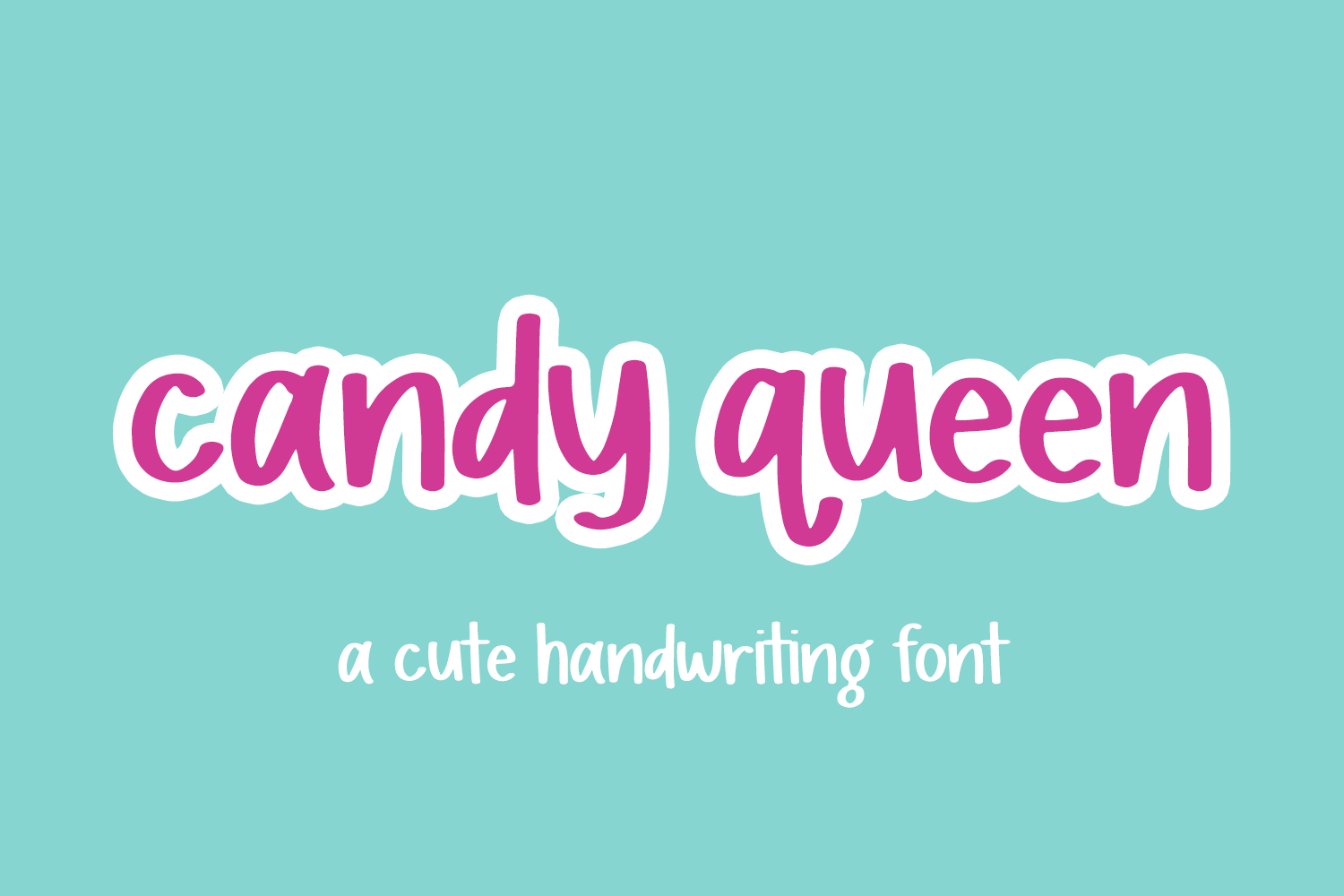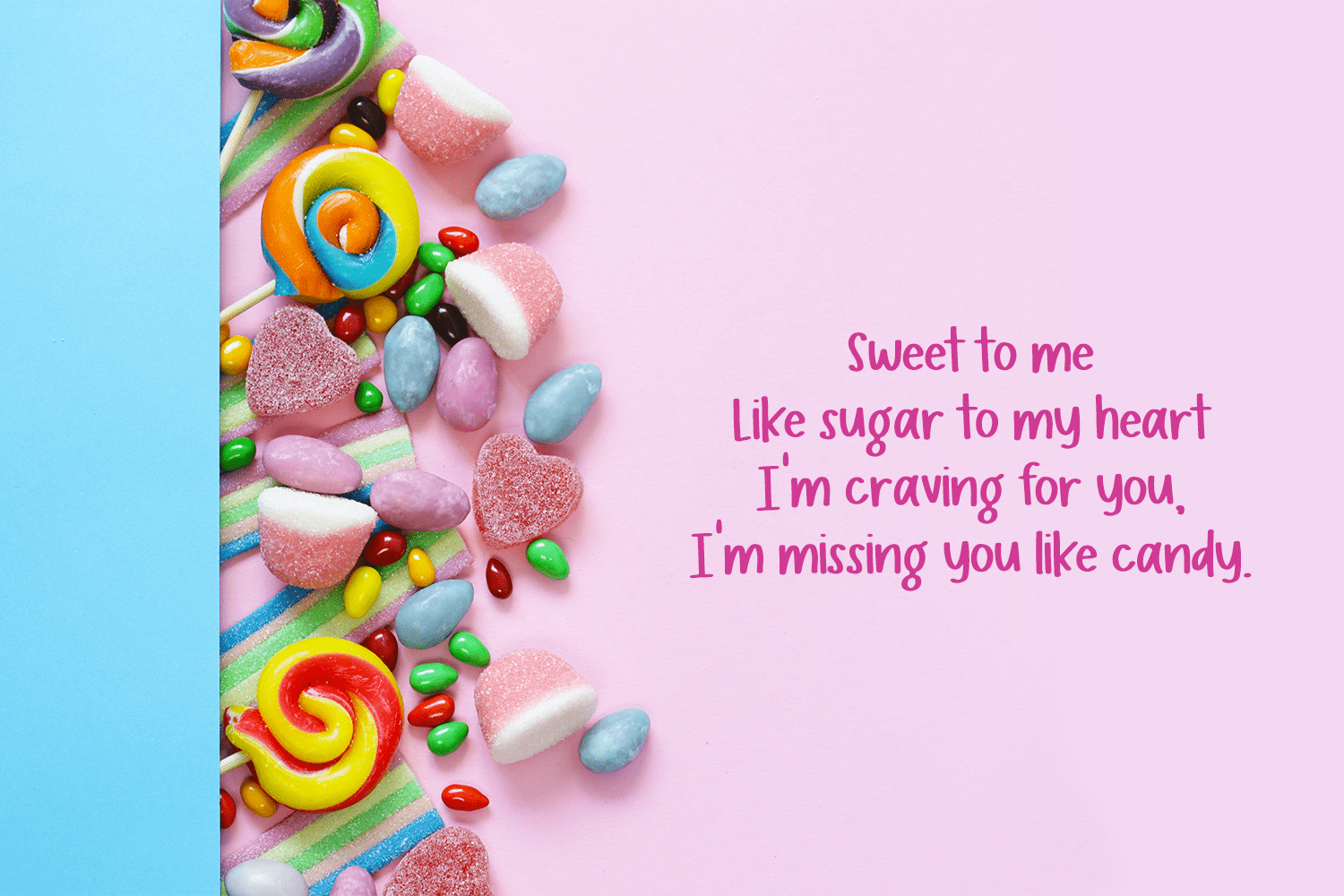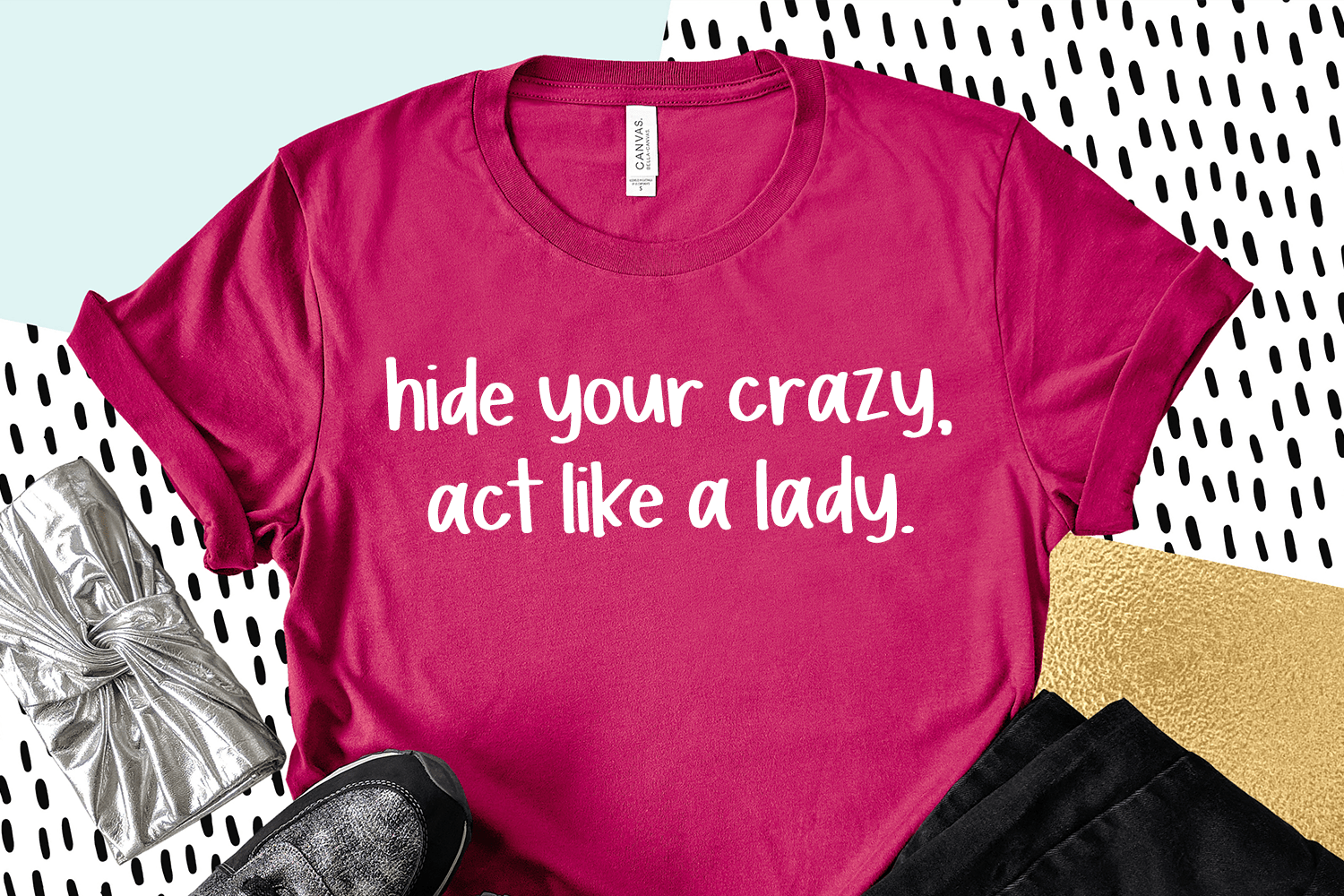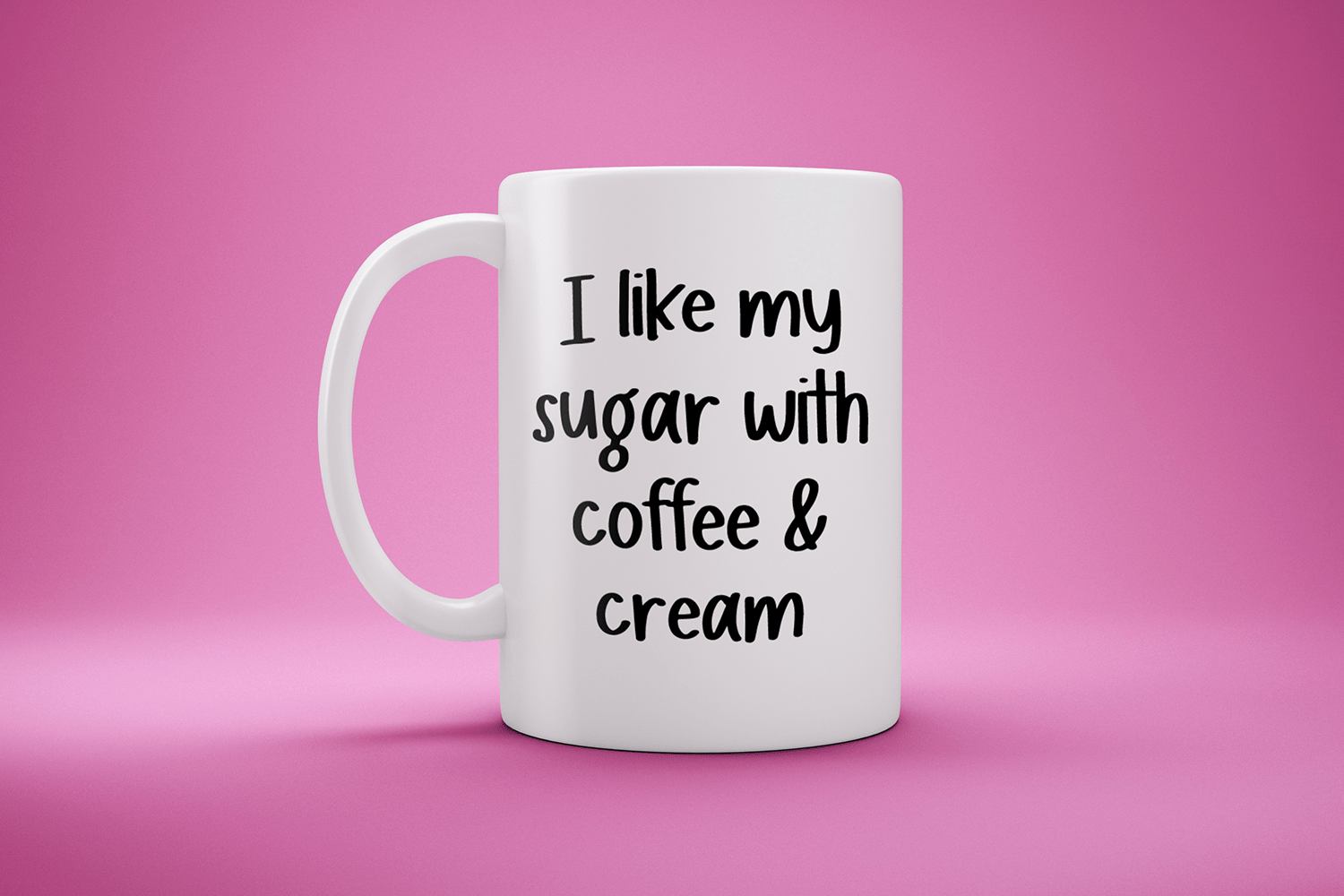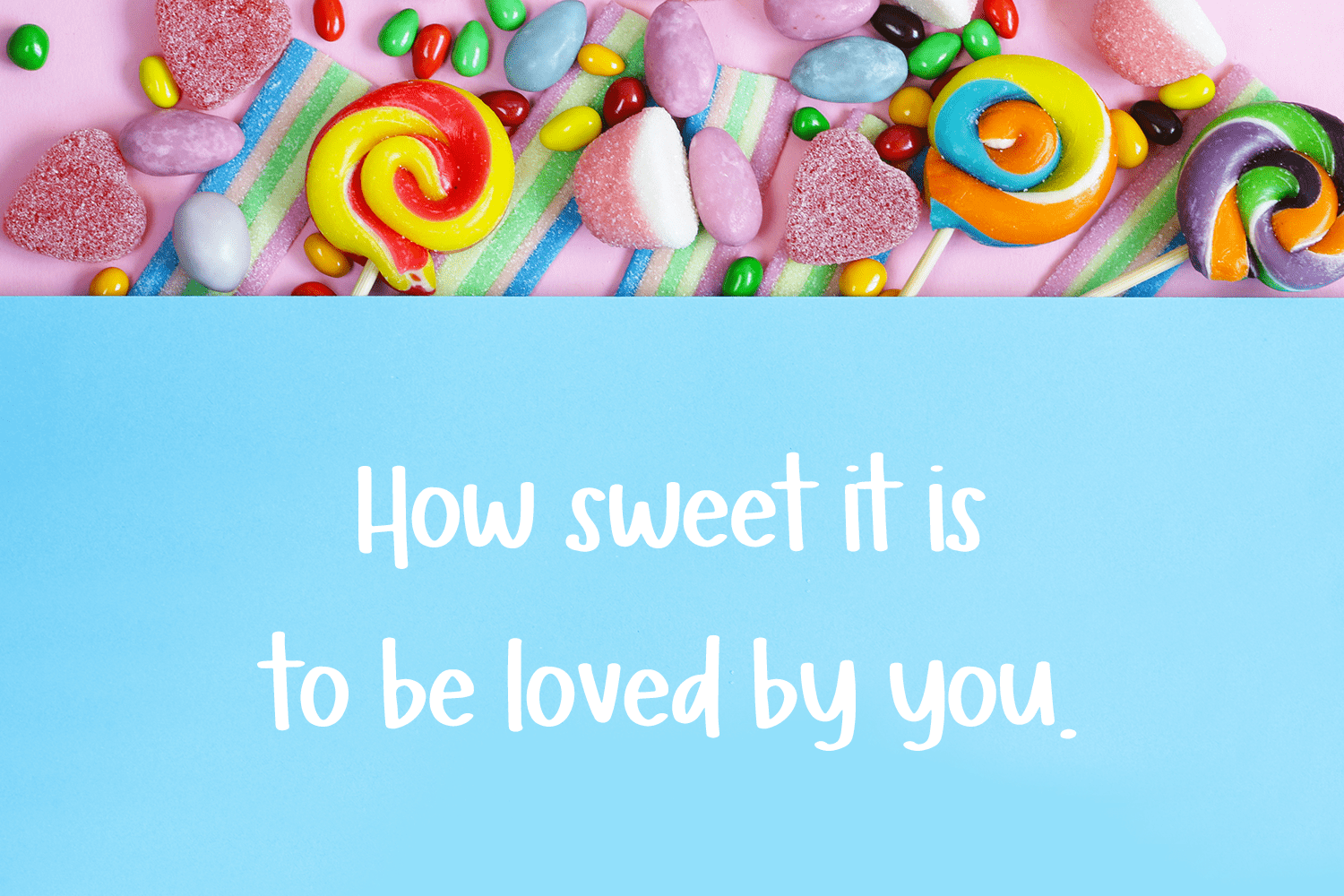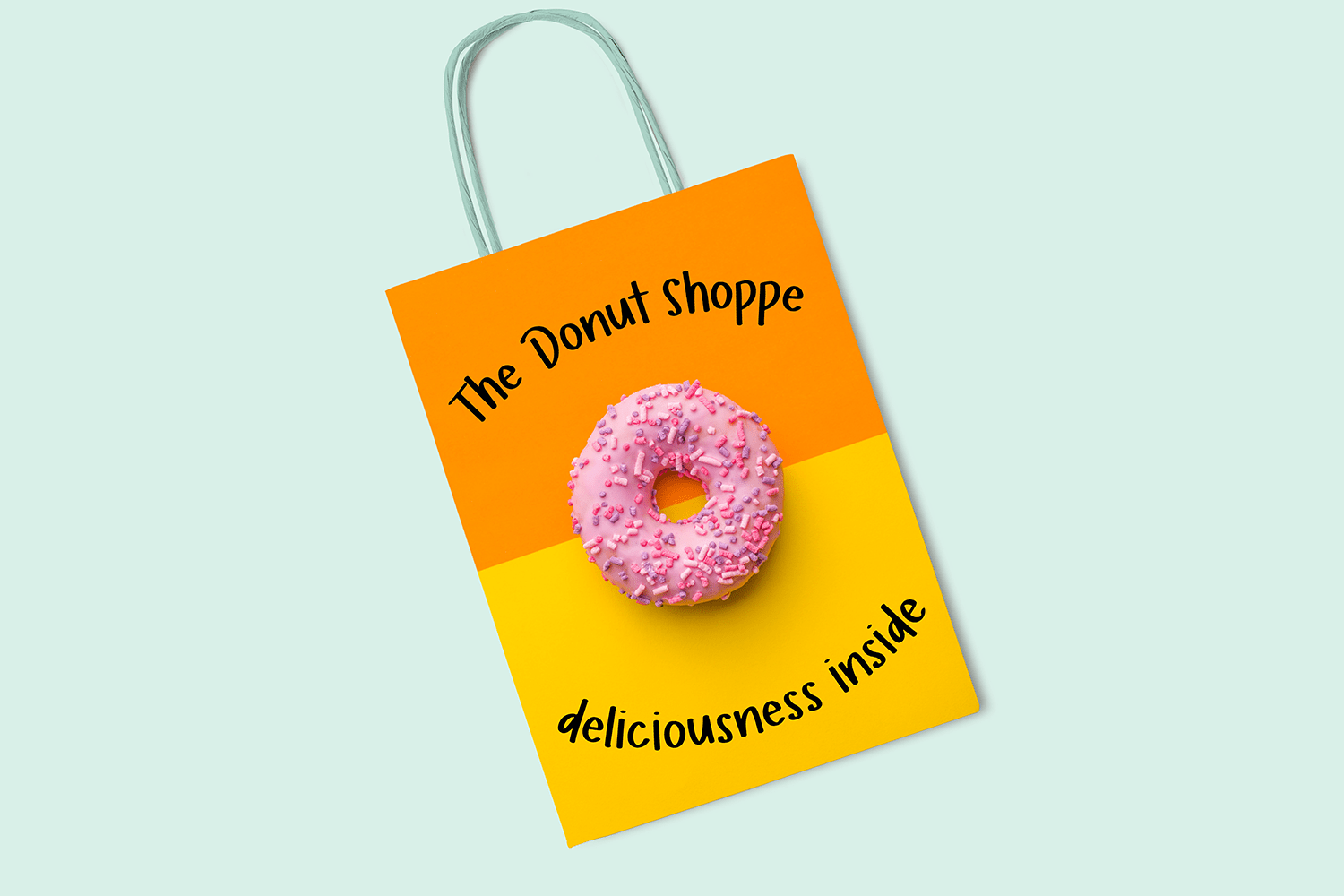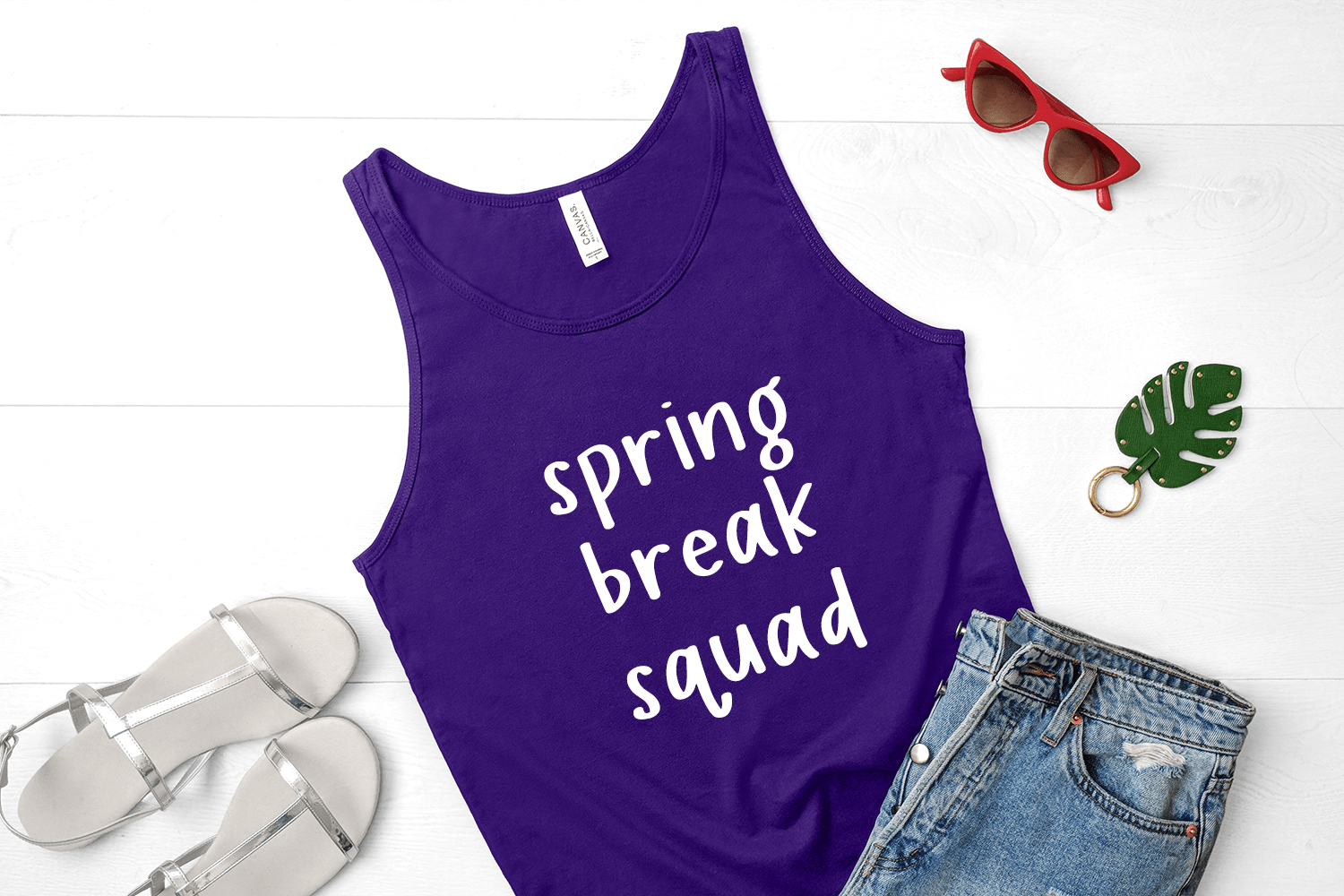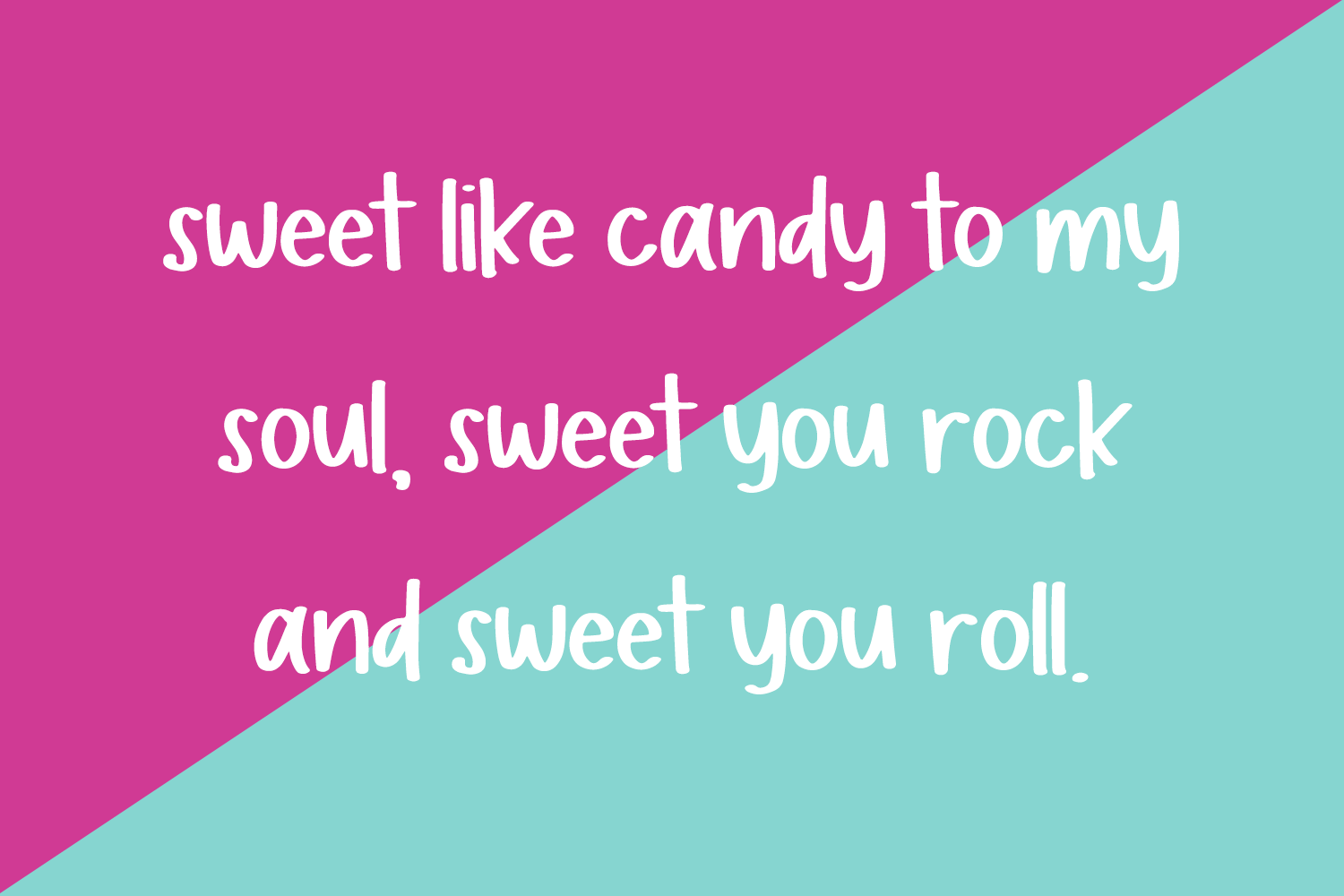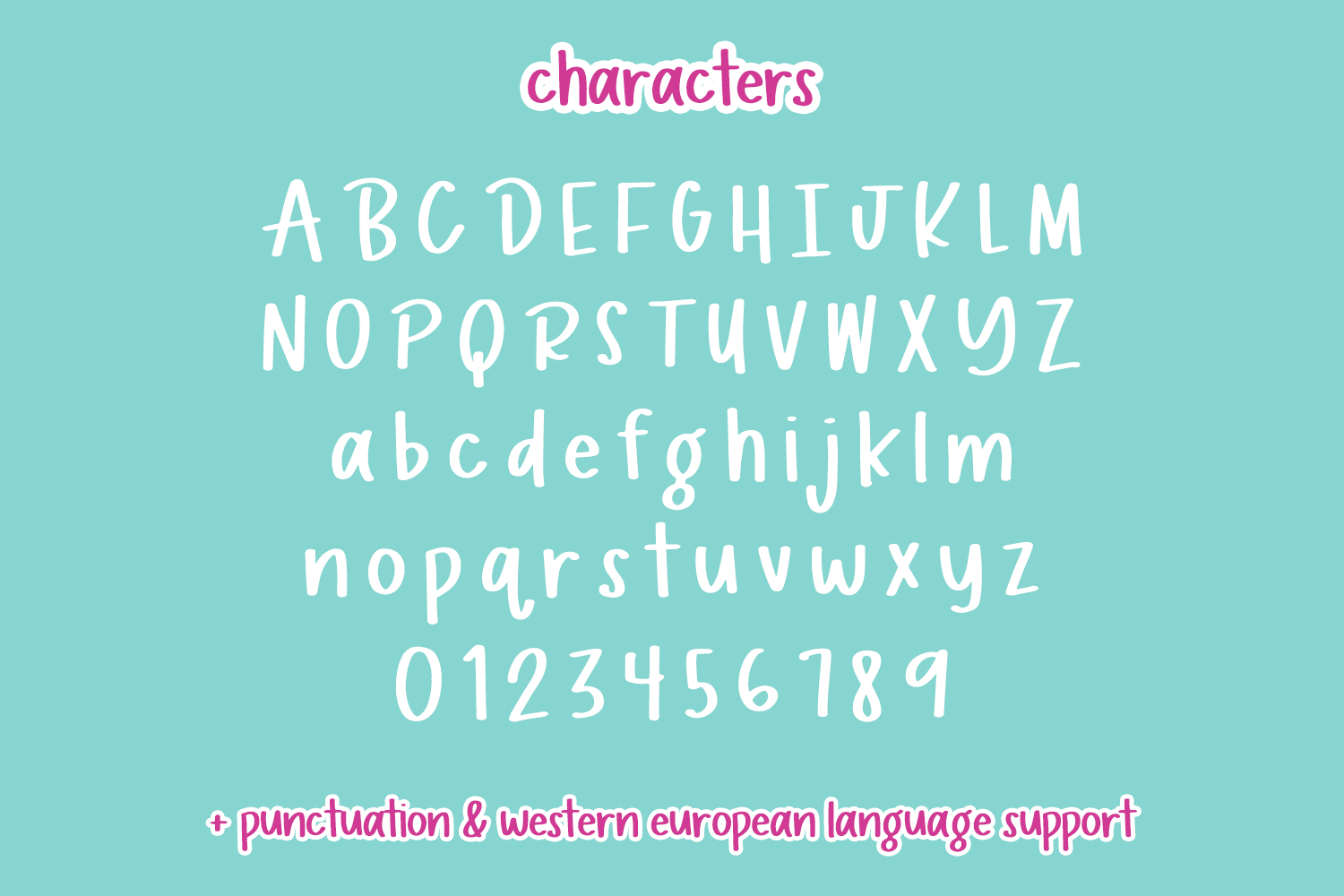
Candy Queen is best for:
– quote graphics for social media
– logos + branding for kid-centric brands
– design items like shirts, coffee mugs, & more
– Cricut and Silhouette projects
– other crafting projects
– school or classroom projects